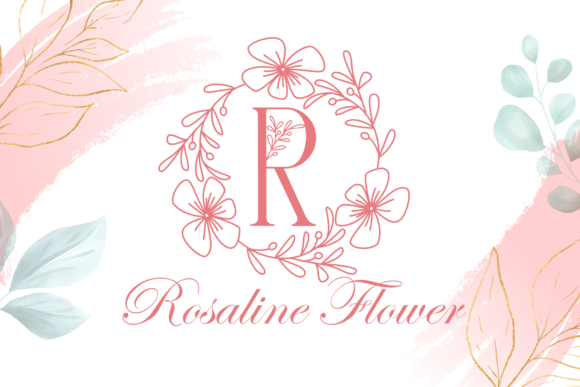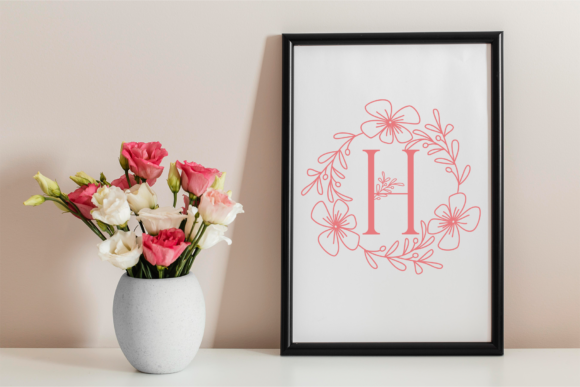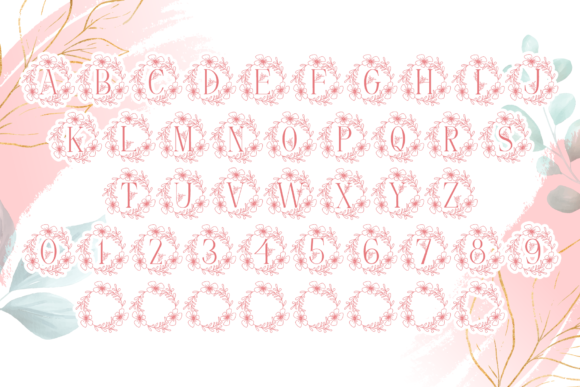
Introducing the Beauty Floral Monogram Font: Elevate Your Designs with Elegance
In the world of design, typography plays a crucial role in conveying emotions and setting the tone for any project. For those seeking to add a touch of romance and sophistication to their creations, the Beauty Floral Monogram Font is an exquisite choice. This dainty and unique decorative font is perfect for love letters, wedding invitations, and a myriad of design ideas, promising to transform your work into something truly breathtaking.
The Essence of Beauty Floral Monogram Font
The Beauty Floral Monogram Font is more than just a collection of letters; it’s an artistic statement. Its intricate floral designs and elegant monogram style evoke a sense of nostalgia and luxury, making it an ideal selection for projects that demand a high level of detail and beauty. Whether you’re a professional designer or a crafting enthusiast, this font can add a personalized touch to your work, setting it apart from the ordinary.
One of the standout features of the Beauty Floral Monogram Font is its versatility. It can be used across various platforms and projects, including:
- Wedding Invitations: Add a touch of elegance and romance to your wedding invitations, setting the tone for your special day.
- Love Letters: Make your love letters even more personal and heartfelt with this beautiful font.
- Stationery: Elevate your stationery designs with a sophisticated and unique look.
- Digital Art: Incorporate this font into your digital art projects for a distinctive and captivating appeal.
- Crafting Projects: Perfect for crafters, this font can be used in scrapbooking, card making, and other DIY projects.
Why Choose Beauty Floral Monogram Font?
There are several reasons why designers and crafters should consider adding the Beauty Floral Monogram Font to their collection:
- Unique and Dainty Design: Its unique floral monogram style is sure to capture attention and leave a lasting impression.
- Customization: Offers ample opportunities for customization, allowing you to make your projects truly one-of-a-kind.
- Romantic Appeal: Infuses your designs with a romantic and elegant feel, perfect for projects meant to convey love and appreciation.
Tips for Using Beauty Floral Monogram Font
To make the most of this beautiful font, consider the following tips:
- Pair with Simplicity: Balance the intricacy of the font by pairing it with simpler design elements.
- Experiment with Colors: Play around with different colors to find the perfect match for your project.
- Mix and Match: Don’t be afraid to combine the Beauty Floral Monogram Font with other fonts for a unique look.
- Pay Attention to Details: Ensure that the size and spacing are adjusted correctly to maintain the elegance of the font.
The Beauty Floral Monogram Font is a stunning addition to any designer’s or crafter’s toolkit. Its unique blend of elegance, romance, and versatility makes it an ideal choice for a wide range of projects. By incorporating this beautiful font into your work, you’re sure to create designs that are not only visually appealing but also emotionally resonant. So why wait? Download the Beauty Floral Monogram Font today and witness the transformation of your designs into something truly magical.